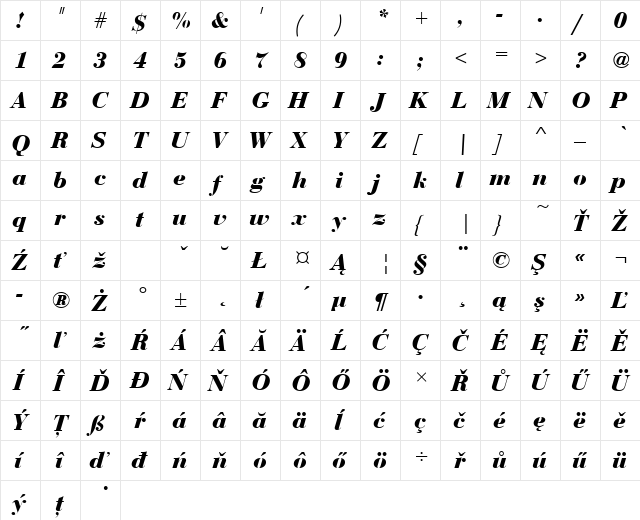
BauerBodDEE Bold Italic
Design Context for BauerBodDEE Typeface
BauerBodDEE offers clean, dependable letterforms without strong stylistic allegiance, making it a practical choice for designers who need flexibility. The dynamic lean of this cut emphasises speed and emphasis in any layout. The heavy weight commands attention and anchors typographic hierarchies.
Pro Tip: Use BauerBodDEE for emphasis, pull quotes, and subheadings where its slanted energy can add rhythm to the layout.